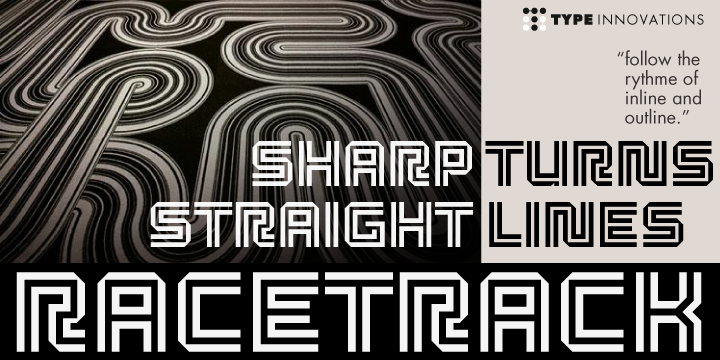
Racetrack Font is perfect for sports branding, racing event posters, automotive magazines, dynamic logos, and action-packed advertising materials. Its bold, angular design screams speed and adrenaline.
What makes Racetrack Font so exciting is its sharp edges and streamlined forms, evoking the thrill of the racetrack. This font delivers high-impact visuals that capture attention instantly.
The font family usually includes Regular and Bold styles, providing flexibility for different emphasis and hierarchy in your designs.
If you want to inject speed and excitement into your projects, Racetrack Font Free Download is a fantastic choice. Let this font fuel your creative passion with power and style.